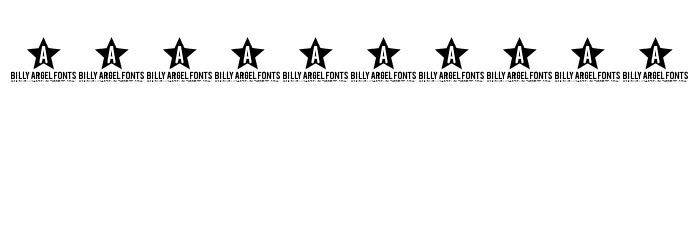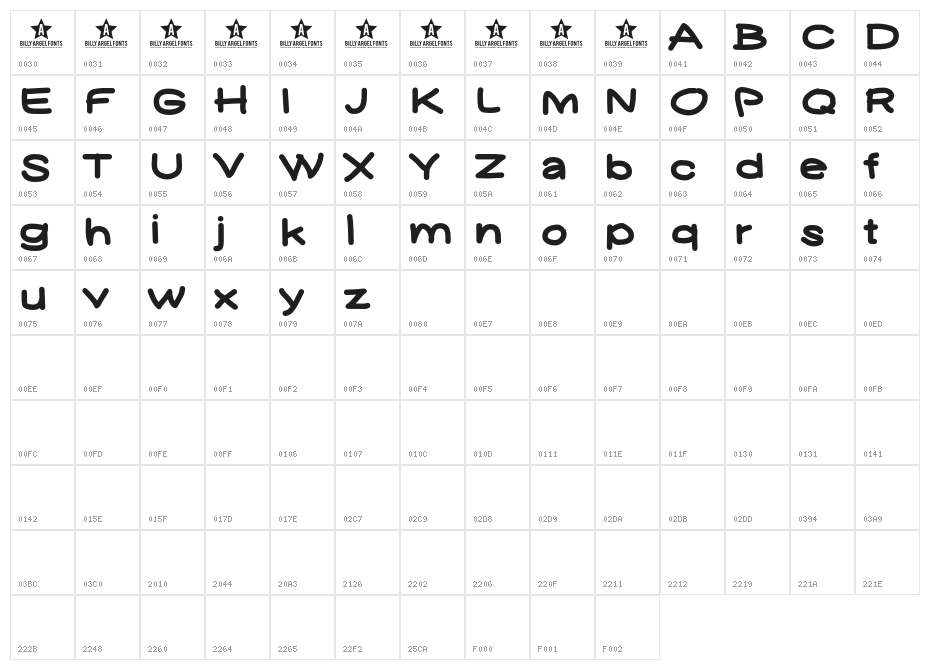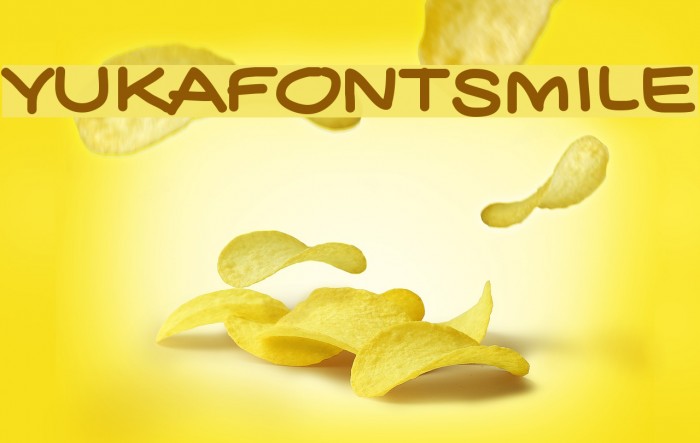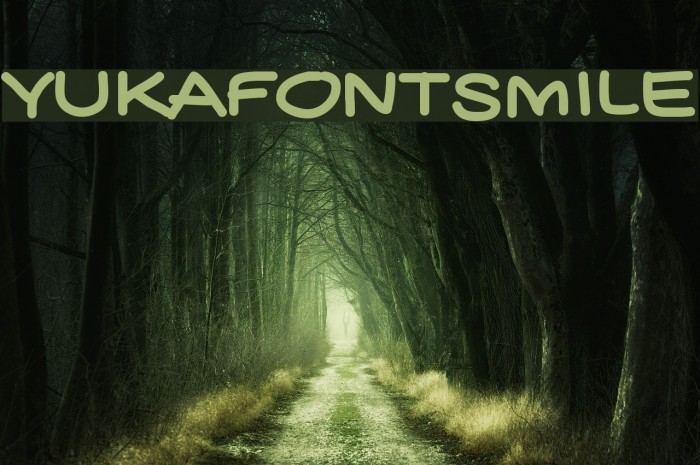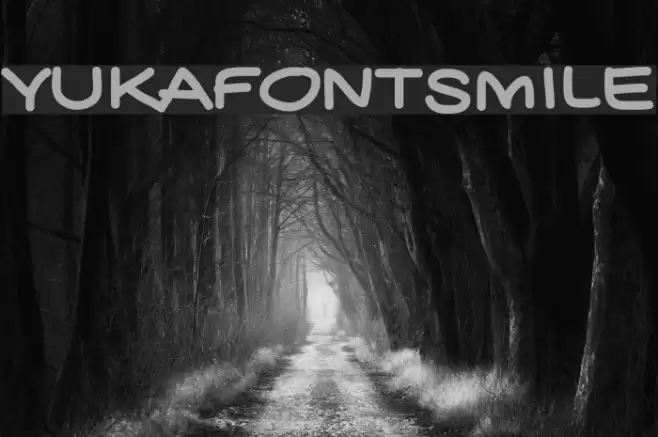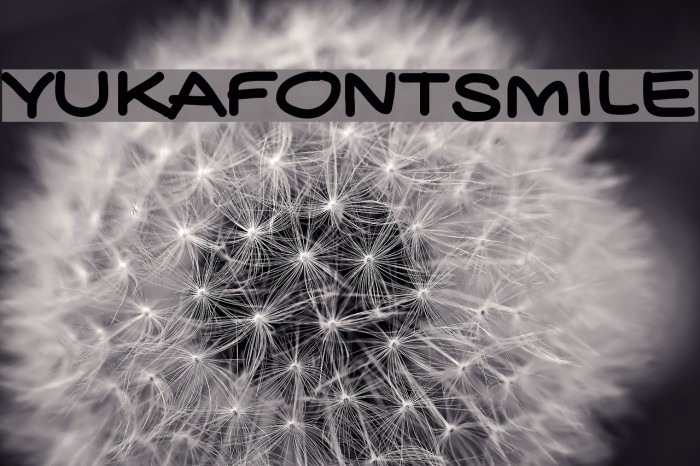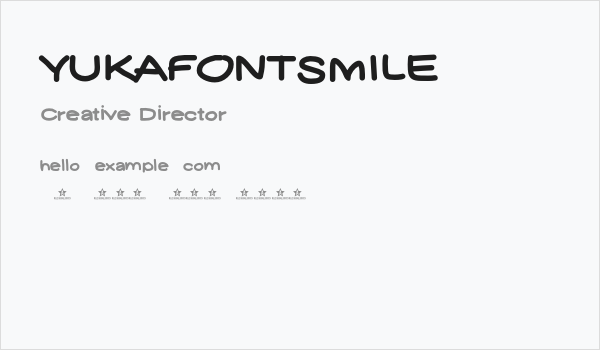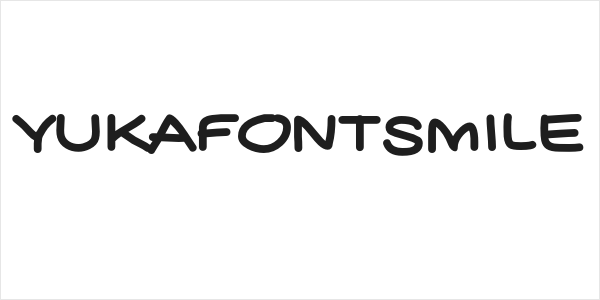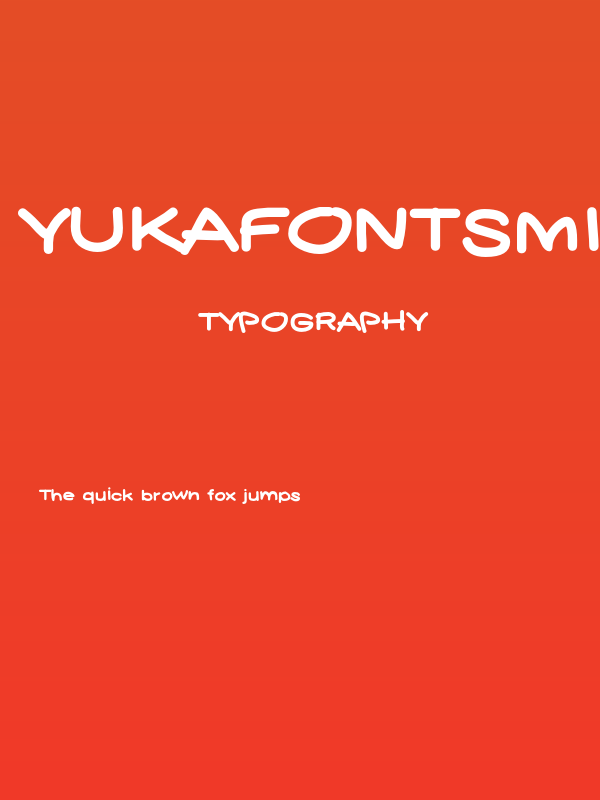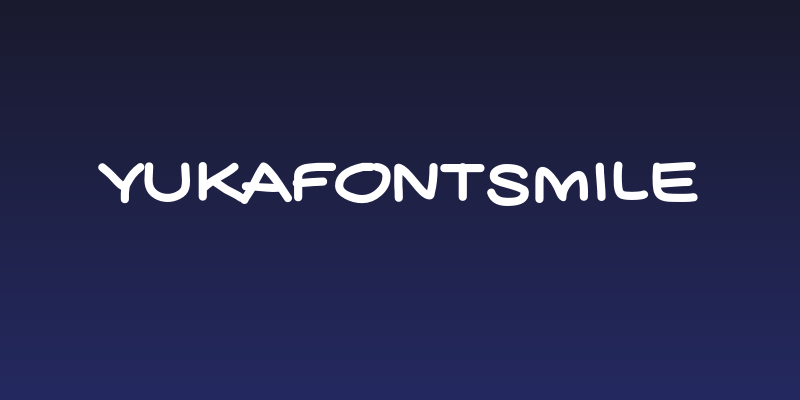
YUKAFONTSMILE Font
YUKAFONTSMILE Description
This playful and rounded font features a bold, friendly style that is both approachable and eye-catching. The letters have a smooth, flowing appearance with consistent stroke widths, giving it a uniform and cohesive look. The uppercase and lowercase characters maintain a similar width, enhancing readability while adding a touch of whimsy. The font's design is well-suited for projects that require a fun and informal tone, making it ideal for children's books, playful branding, or creative posters. Its unique style stands out, making it a great choice for designs that aim to capture attention and convey a sense of joy and creativity.
| Overall Style | Playful, Fun |
| Proposed Projects | Children's books, playful branding, creative posters, informal invitations. |